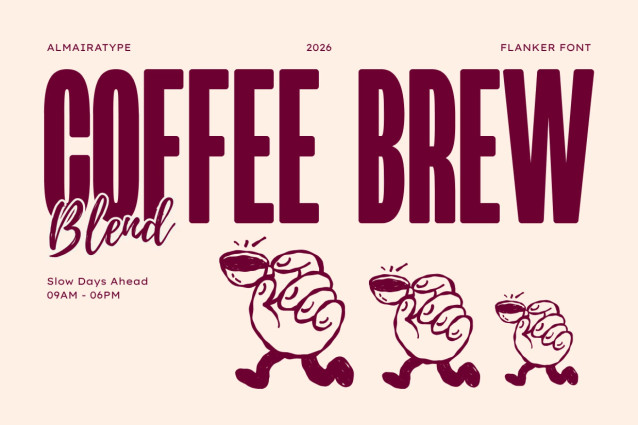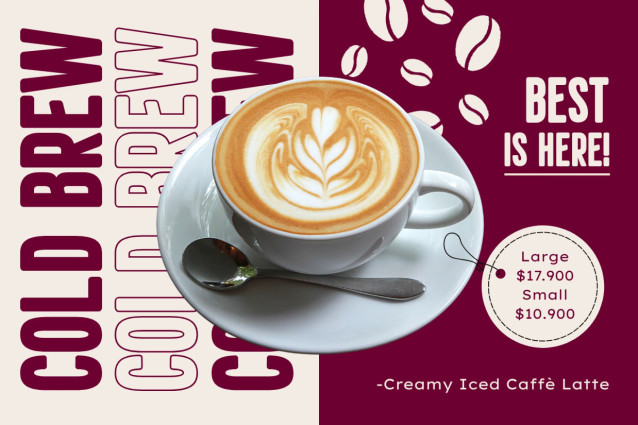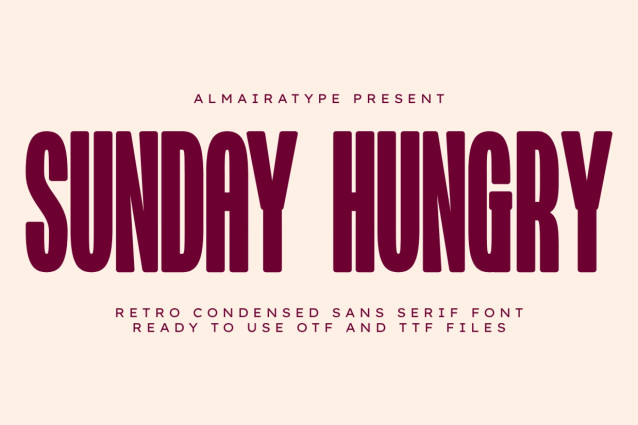
Sunday Hungry – Bold Retro Condensed Sans Serif Font
Make a bold, commanding, and delightfully nostalgic statement with Sunday Hungry, an ultra-bold retro condensed sans serif font engineered for creators who want their headlines to pop with a heavy, confident charm. Meticulously structured with a massive display weight, balanced tall compressed baselines, and softly rounded corners, this versatile font brings an instant blend of vintage lifestyle warmth and clean modern urban professionalism to any creative canvas.
Whether you are an apparel designer launching a fresh streetwear collection, a graphic artist establishing a bold commercial food or lifestyle brand, or a high-volume print-on-demand seller optimizing listings for search engine conversions, Sunday Hungry delivers unmatched readability and outstanding shelf appeal. For the crafting community and DIY enthusiasts, every single glyph has been technically polished and vector-optimized to ensure a smooth, effortless cutting and weeding experience on digital cutting machines like Cricut and Silhouette. Bring the powerful, playful, and timeless aesthetic of Sunday Hungry into your commercial design toolkit today!